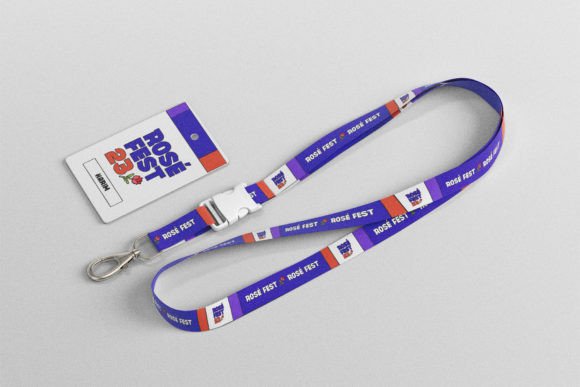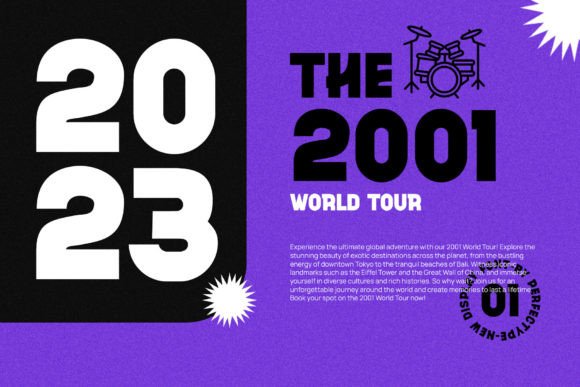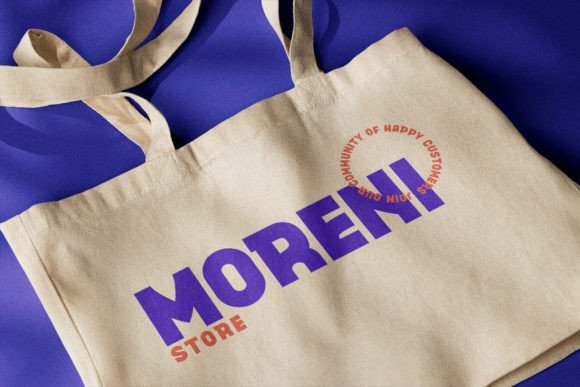
Introduction to Moste Font
Have you ever found yourself staring at a blank canvas, waiting for inspiration to strike? The blank page can be a daunting sight for many creatives, but it’s in these moments that the perfect design element can make all the difference. For designers, the right font can elevate a project from bland to grand, adding a touch of elegance and sophistication that leaves a lasting impression.
Enter the Moste Font, a minimalist masterpiece that’s perfect for a wide range of creative projects. With its high-quality design and transparent background, this versatile font is a valuable addition to any designer’s toolkit.
Key Features of Moste Font
- Moste Font offers a transparent background, making it ideal for use on various backgrounds and designs.
- Available in 5 different font styles, each with unique characteristics to suit various design needs.
- Supports a wide range of languages, making it a versatile design resource for global projects.
Honest Review: Moste Font
As a designer, I’m always on the lookout for high-quality fonts that can elevate my creative projects. Recently, I had the chance to try out the Moste Font, and I’m excited to share my thoughts with you.
- Unique and modern design: The Moste Font has a fresh, modern look that’s perfect for any creative project.
- High-quality vector format: The font is available in vector format, making it easy to scale and use in a variety of design applications.
- Limited language support: The Moste Font only supports a limited range of languages, which may be a drawback for designers working on projects that require multiple languages.
- No transparent background option: While the font itself looks great, it doesn’t have a transparent background option, which can be a limitation for designers who need to use it on images or backgrounds.
Overall, I’m impressed with the Moste Font’s unique design and high-quality vector format. While it may have some limitations, it’s a valuable design resource that’s definitely worth considering for your next creative project.
Tips for Getting the Most Out of Moste Font
To get the most out of Moste Font, use it in combination with a transparent background to create high-quality designs. Experiment with different font sizes, colors, and styles to add creativity to your project.
Moste Font is a versatile design resource that can be used in various creative projects, such as logos, business cards, brochures, and social media graphics.
Compared to Moste Font, Great Vibes has a more refined and polished look, making it suitable for a wider range of design applications. While Moste Font is great for casual, playful designs, Great Vibes is better suited for high-end, professional projects.
Compared to Moste Font, Alex Brush has a more delicate and refined look, making it suitable for projects that require a softer, more feminine touch. While Moste Font is great for bold, playful designs, Alex Brush is better suited for projects that need a more subtle, elegant look.